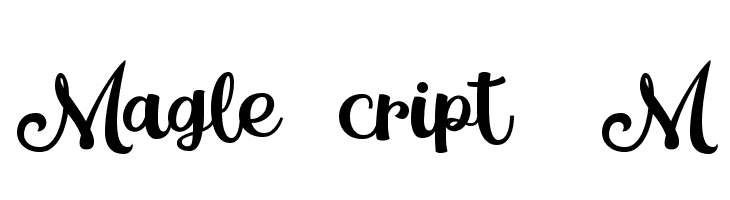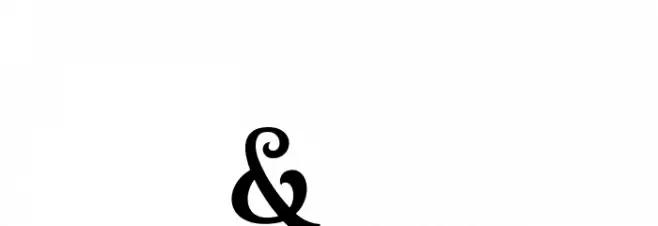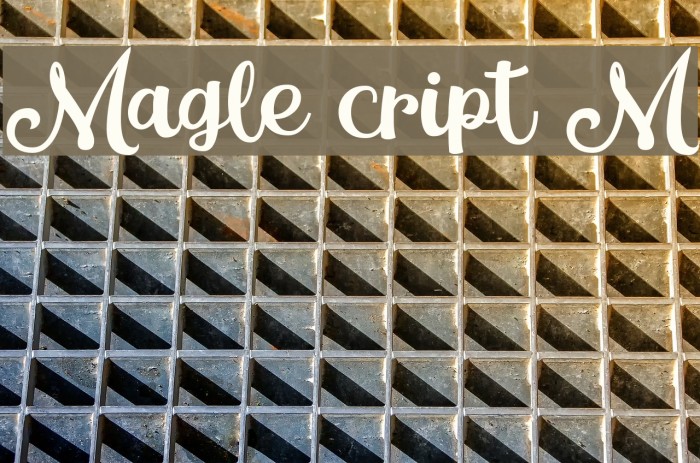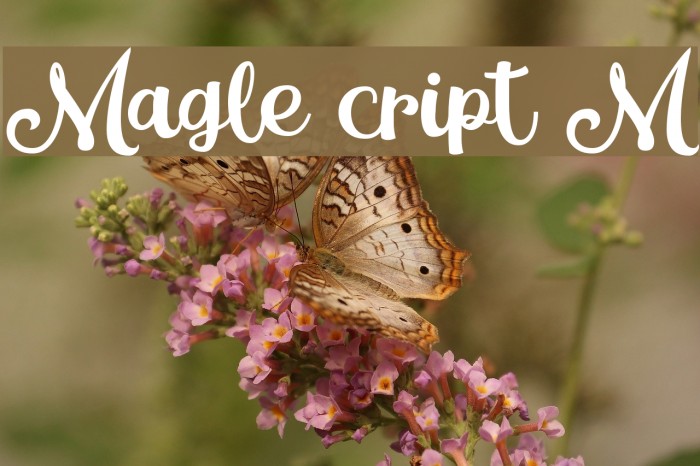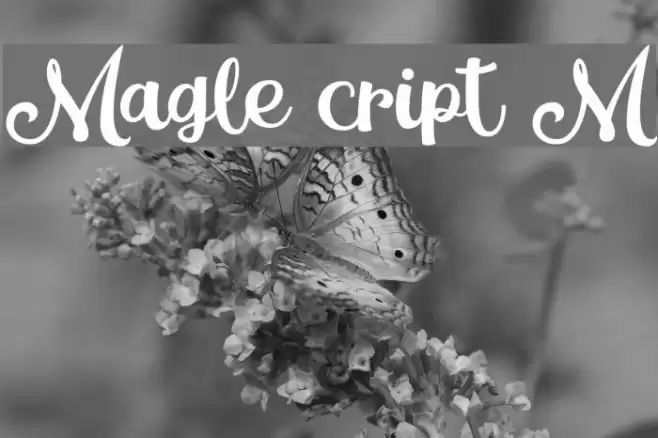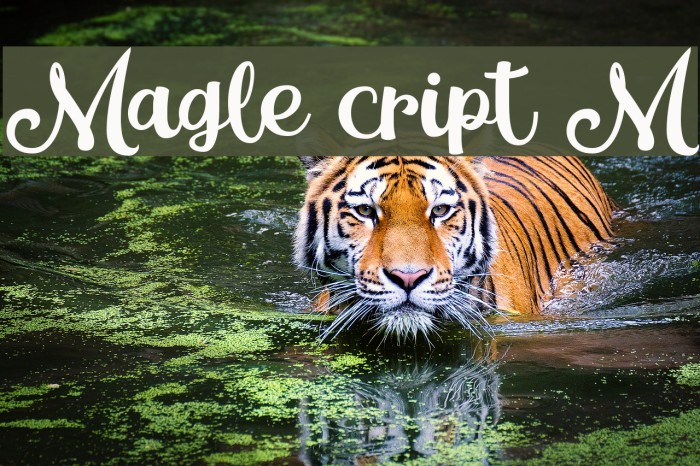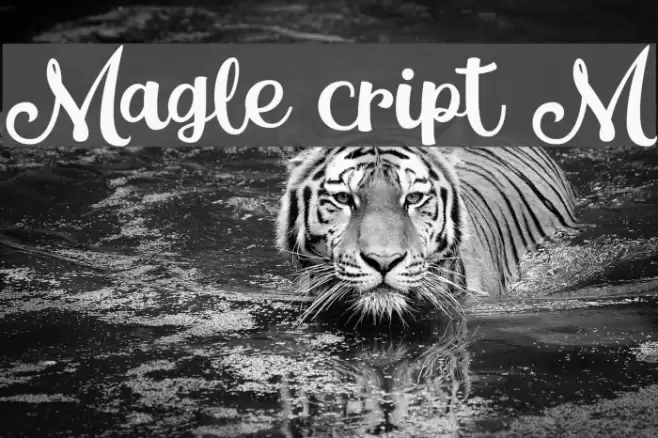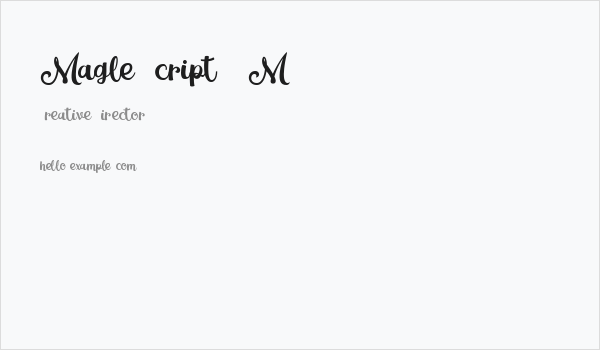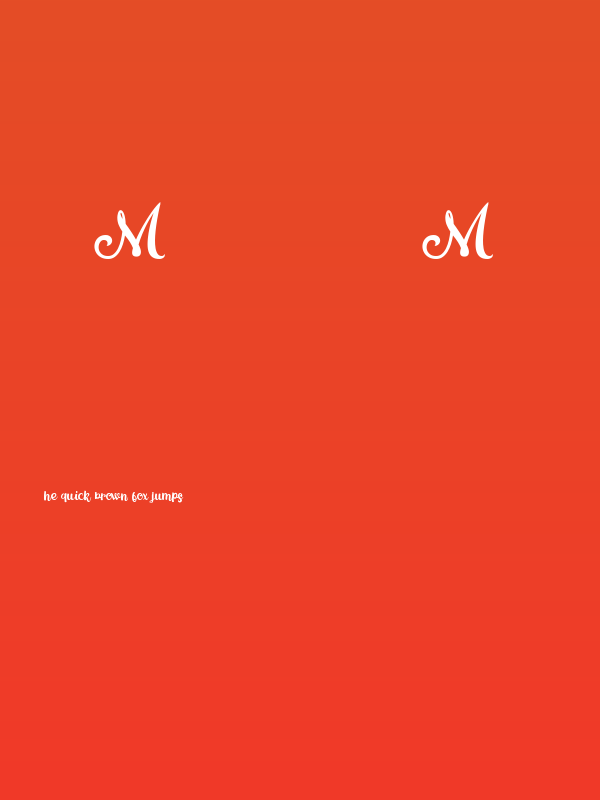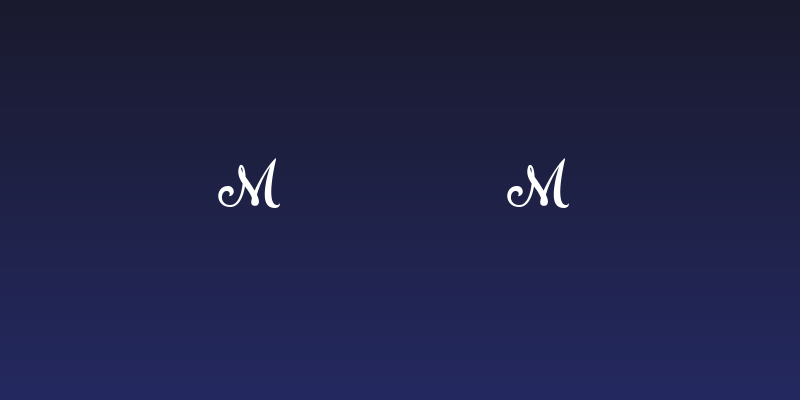
Magle Script DEMO Font
Magle Script DEMO Description
This font features a playful and elegant script style, characterized by its flowing, connected letters and smooth curves. The uppercase letters are bold and decorative, while the lowercase letters maintain a consistent, rounded form that enhances readability. The ampersand and other special characters are intricately designed, adding a touch of sophistication. This font is ideal for projects that require a personal, handwritten feel, such as invitations, greeting cards, and branding materials. Its unique style makes it stand out, while still being versatile enough for various design needs.